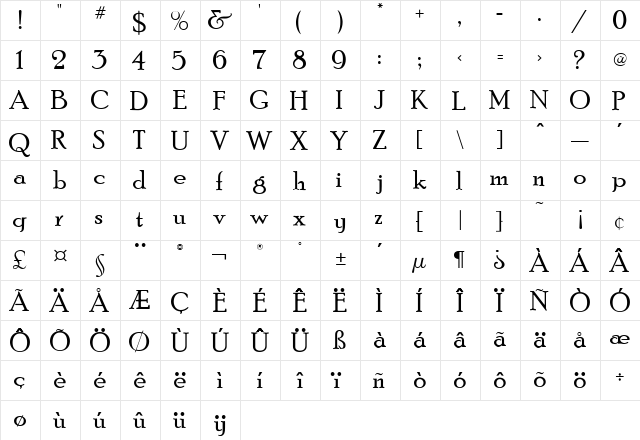
PoorRichard Regular
Design Context for PoorRichard Typeface
PoorRichard is a composed and adaptable typeface that performs quietly and consistently across a wide range of design contexts.